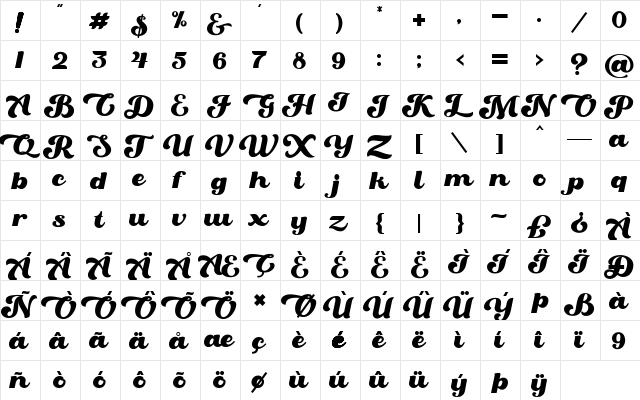
Oaklash Regular
| Foundry | Stringlab |
| Designer | Stringlab |
Design Context for Oaklash Typeface
Oaklash is a composed and adaptable typeface that performs quietly and consistently across a wide range of design contexts.